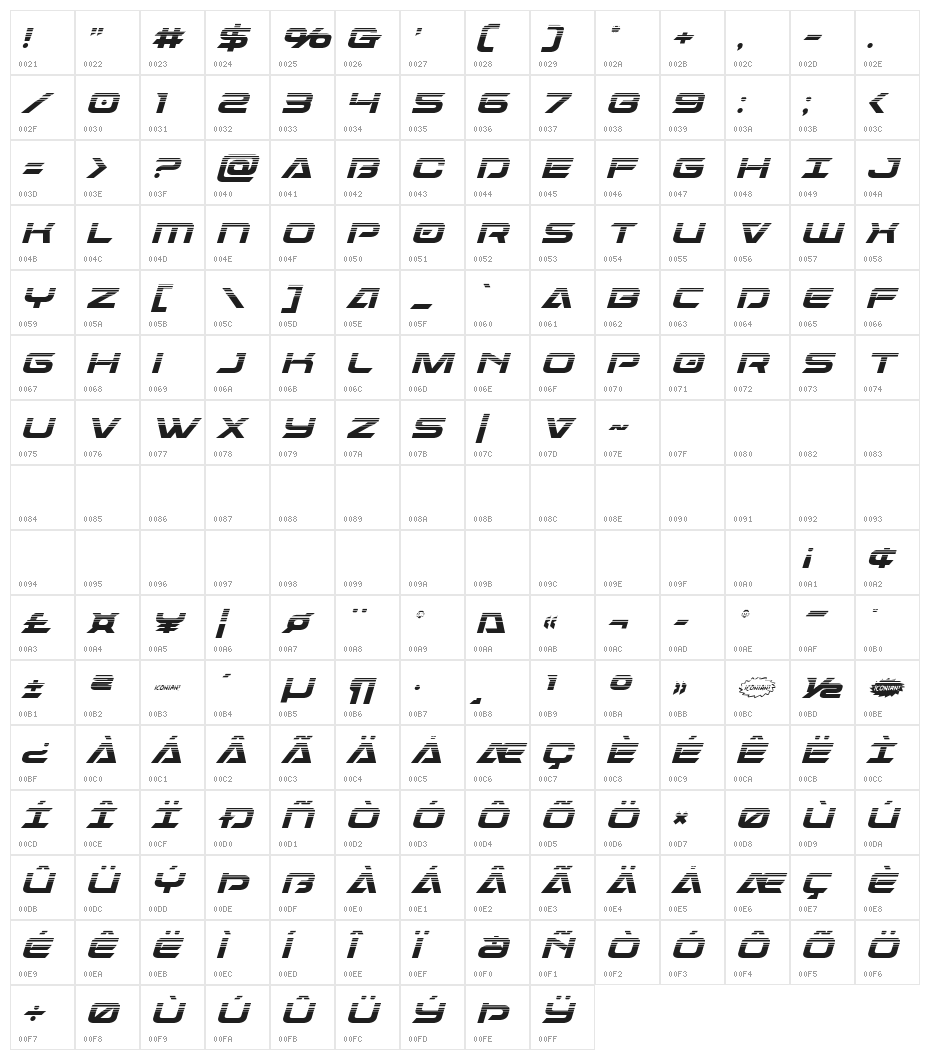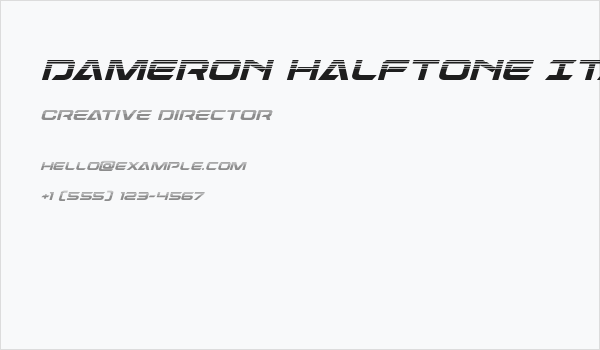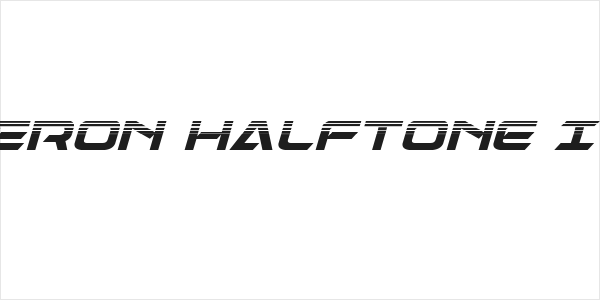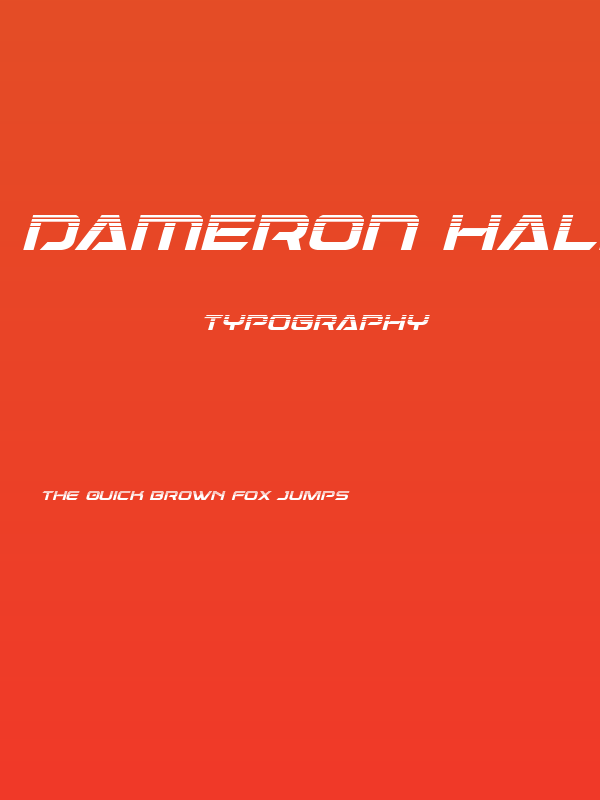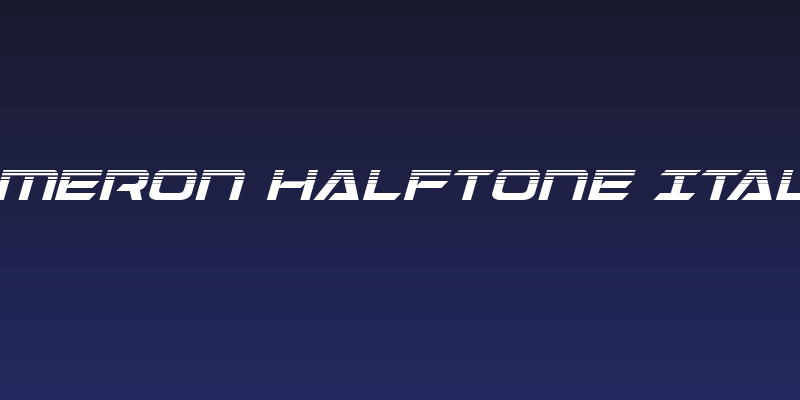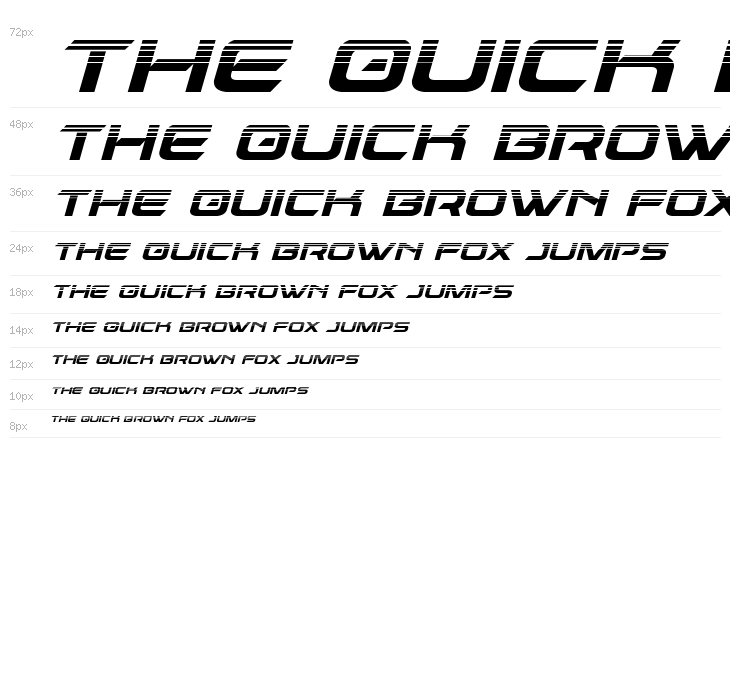
Dameron Halftone Italic Font
Dameron Halftone Italic Description
This font features a dynamic and futuristic design with a halftone effect that gives it a sense of movement and energy. The italicized letters are sleek and angular, with a consistent slant that enhances its modern appeal. The uppercase and lowercase characters maintain a uniform style, while the numerals and special characters integrate seamlessly with the overall design. The halftone pattern adds a unique texture, making it stand out for creative and bold applications.
| Proposed Projects | Ideal for sci-fi themed projects, tech branding, video game titles, and modern advertising campaigns. |